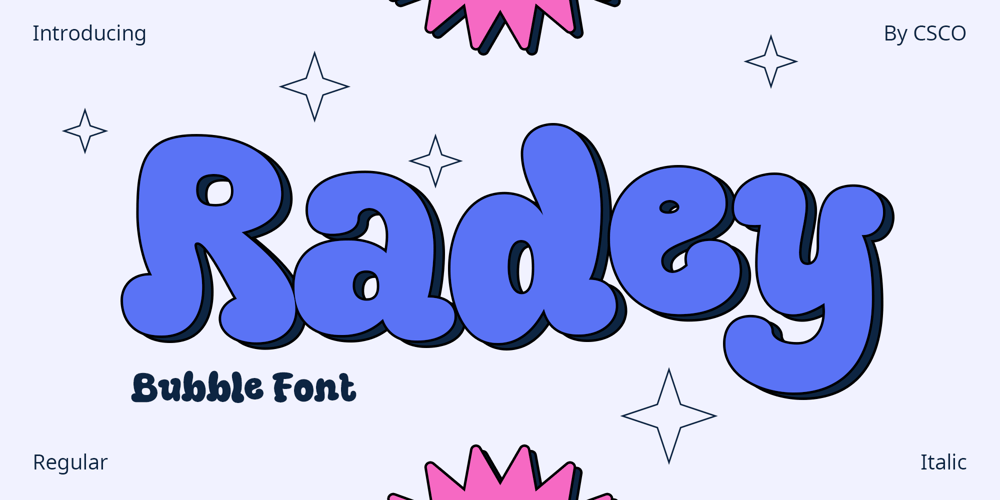
Radey Font Family was designed by Trio Nazzar Saputra, Wahyu Hadi Yuana and published by Craft Supply Co. Radey contains 2 styles and family package options. Introducing Radey – Bubble Font is a playful display font. Its design is inspired by the shapes of bubbles and clouds. The font has a light, airy feel, perfect for creative projects.Key FeaturesEach character in Radey mimics a bubbly form. The round edges convey a soft and friendly vibe. This font is versatile, suitable for both digital and print media. It’s easy to read, making it great for headings and logos.Versatility in UseRadey – Bubble Font shines in various applications. It’s ideal for children’s books, party invitations, and branding projects. The font adds a whimsical touch to websites and social media graphics. Its clarity ensures legibility in larger sizes.